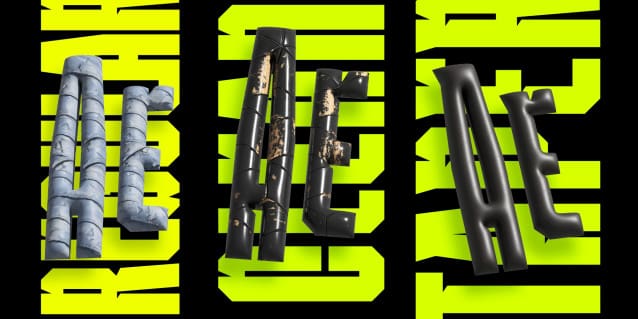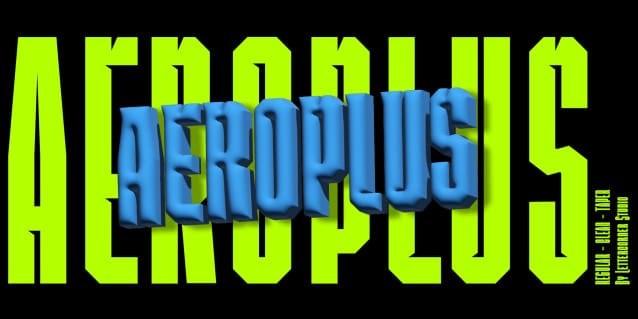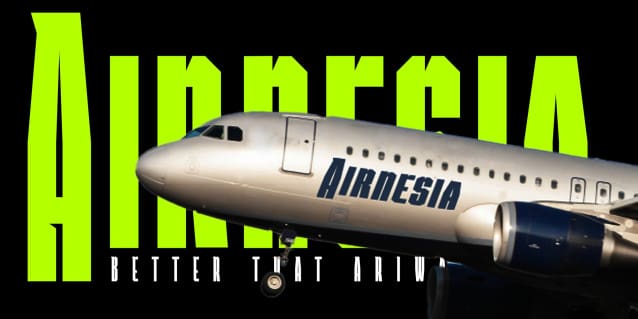
Aeroplus Sans Font
Aeroplus Sans Font is a fancy modern condensed all Caps sans serif font. With bold tall and sharp stroke, fun character with a bit of ligatures and alternates. To give you an extra creative work. Aeroplus font support multilingual more than 100+ language. This font is good for logo design, Social media, Movie Titles, Books Titles, a short text even a long text letter and good for your secondary text font with sans or serif. Make a stunning work with Kajiro font.